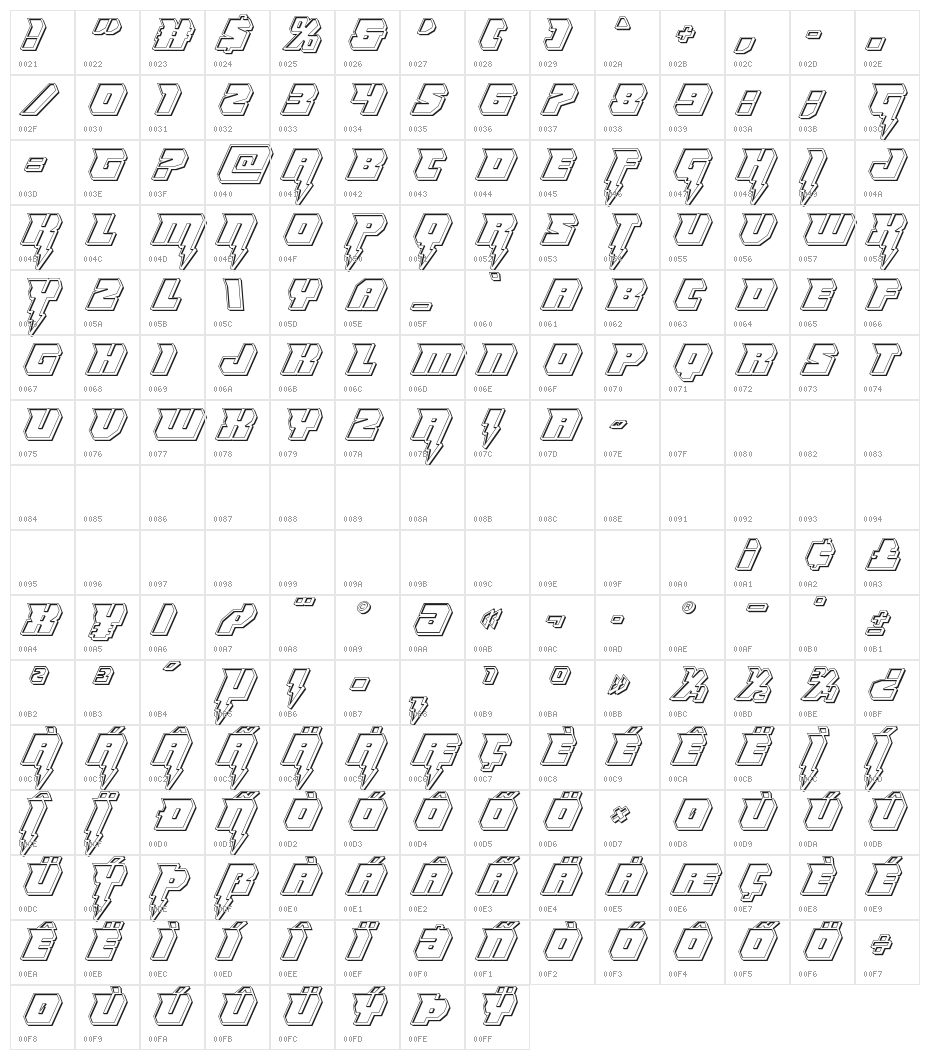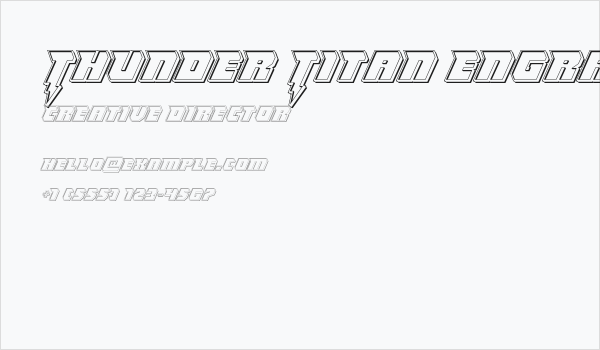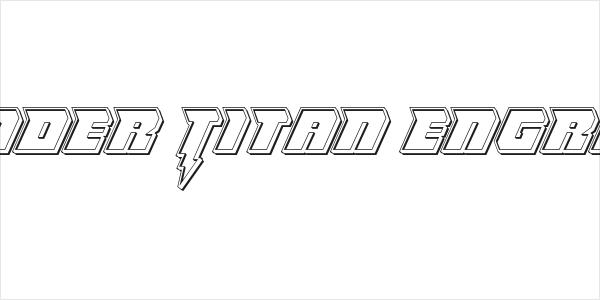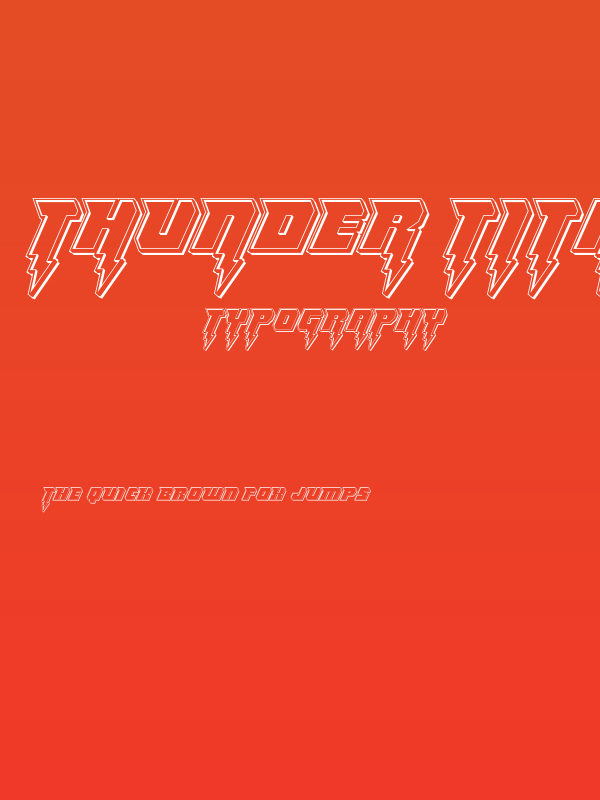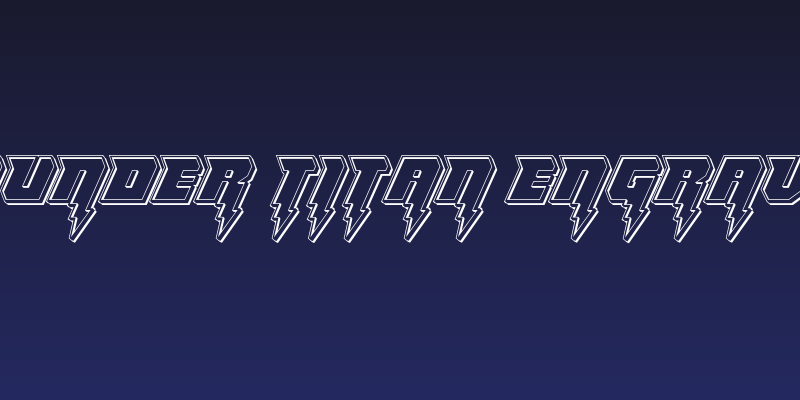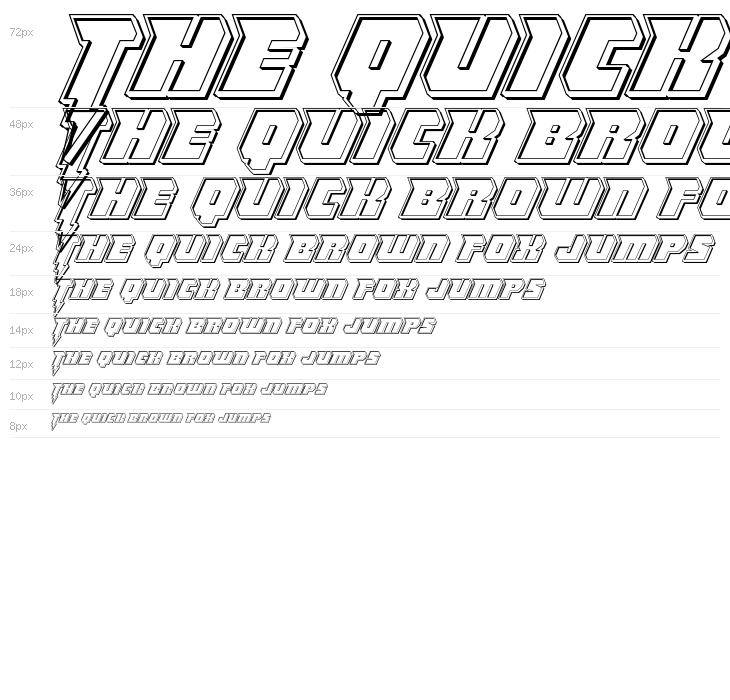
Thunder Titan Engraved Font
Thunder Titan Engraved Description
This font features a bold, dynamic design with a striking lightning bolt motif integrated into each character. The uppercase letters have a strong, angular appearance, giving them a sense of power and energy. The lowercase letters maintain this boldness while offering a slightly more compact form. Numbers and special characters are designed with the same electrifying style, ensuring consistency across all elements. The font's outline adds depth and dimension, making it ideal for eye-catching displays. Its unique style is perfect for projects that require a sense of excitement and impact.
| Overall Style | Modern, Energetic |
| Proposed Projects | Ideal for branding, posters, music album covers, sports team logos, and any project needing a bold, energetic look. |